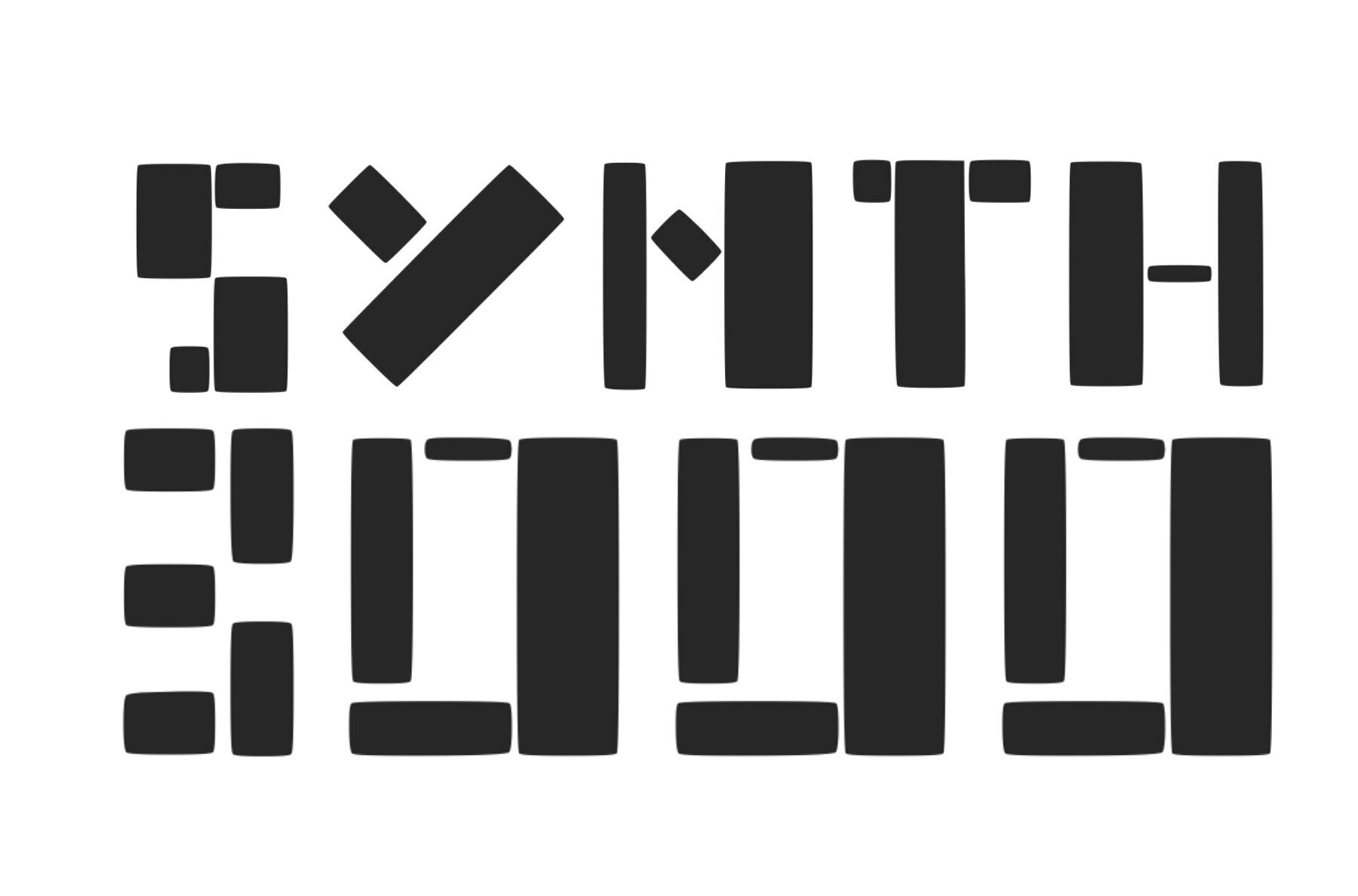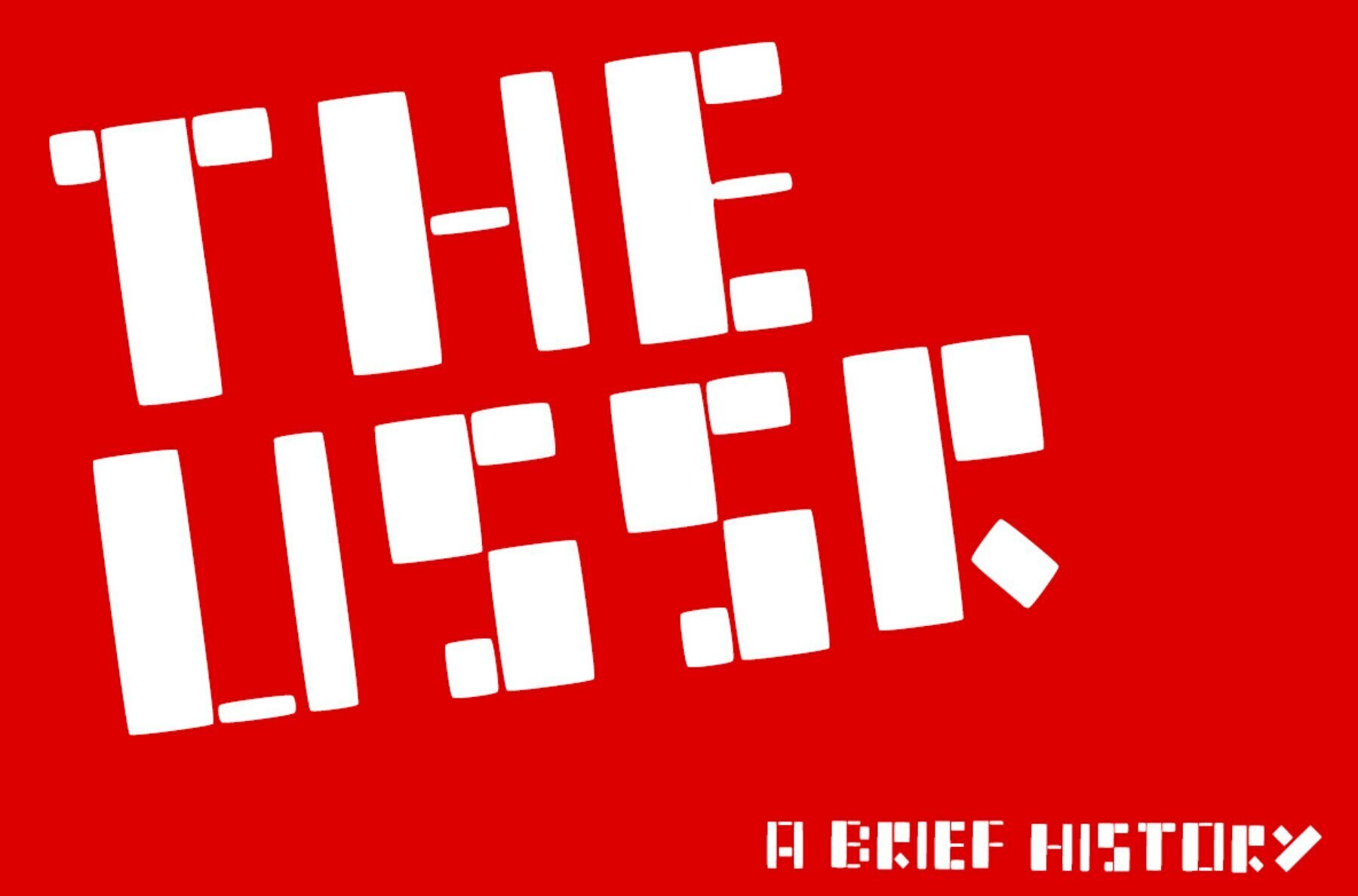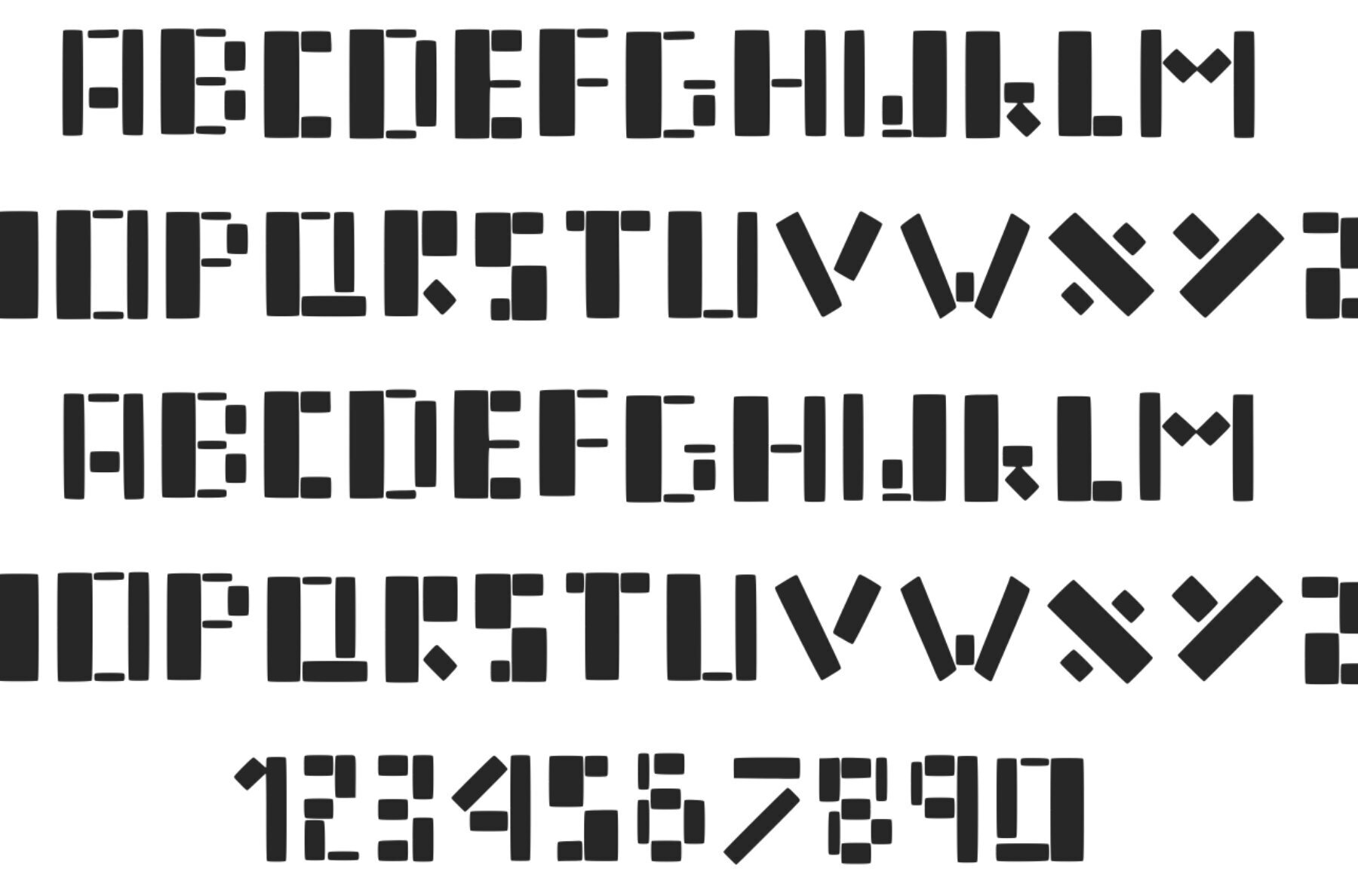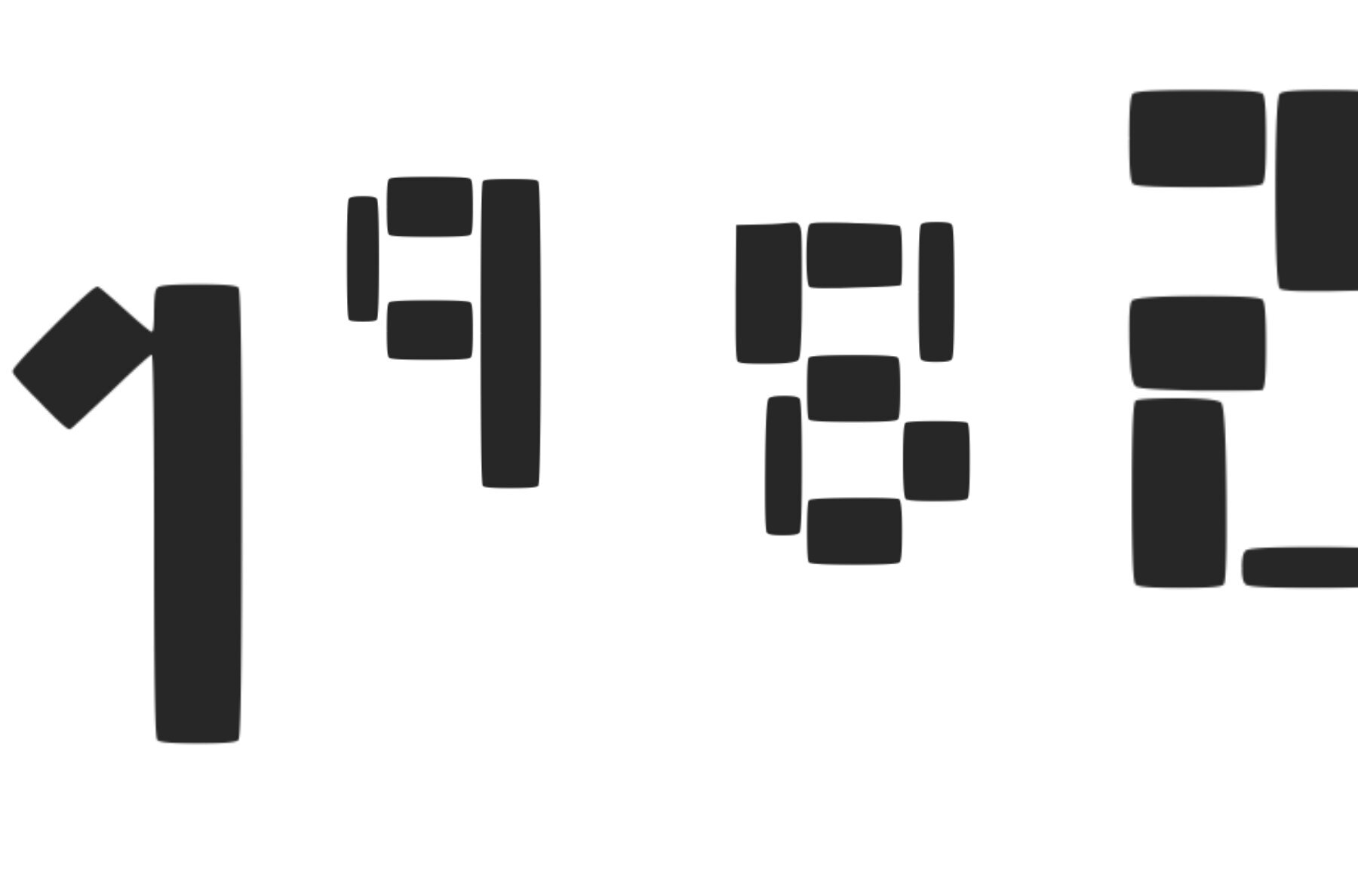
Synth 3000 Font
Synth 3000
Step into the realm of artful design with the Synth 3000, a distinctive display font inspired by blocky, Russian aesthetics. This typeface brings a unique touch to any creative project, drawing from both tradition and modern artistry to captivate the eye in both digital and print media.Synth 3000: A Display Font with a Bold Russian Flair